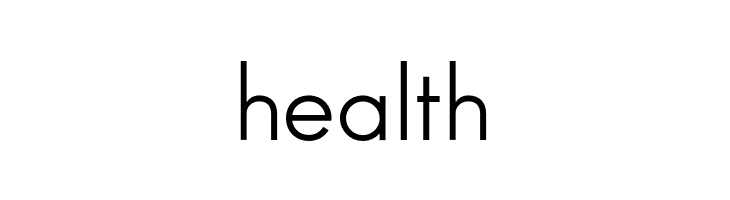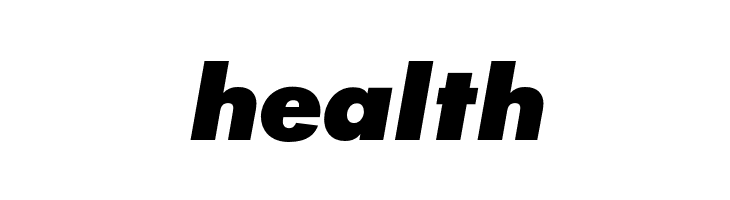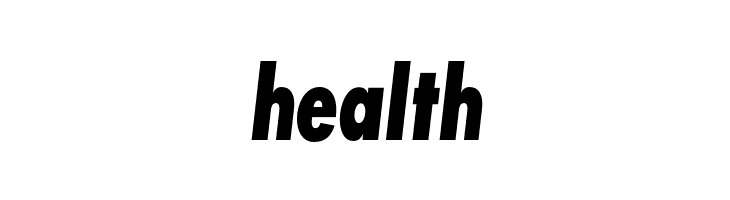
Bold, condensed sans-serif font with an italic slant, offering a modern and dynamic appearance.
A modern, italic sans-serif font with clean lines and a sleek appearance.
A modern, italic sans-serif font with clean lines and excellent readability.
A bold, geometric sans-serif font with clean lines and strong presence.
A clean and modern sans-serif font with balanced proportions and high legibility.
Bold, italicized sans-serif font with high contrast and modern style.
Bold, condensed sans-serif font with an italic slant.
A modern sans-serif font with an italic slant, offering clarity and precision.
A bold, geometric sans-serif font with strong, clean lines.
A bold, modern sans-serif font with geometric influences and rounded edges.